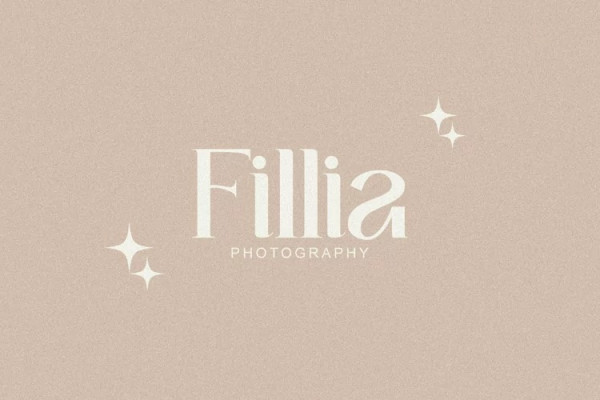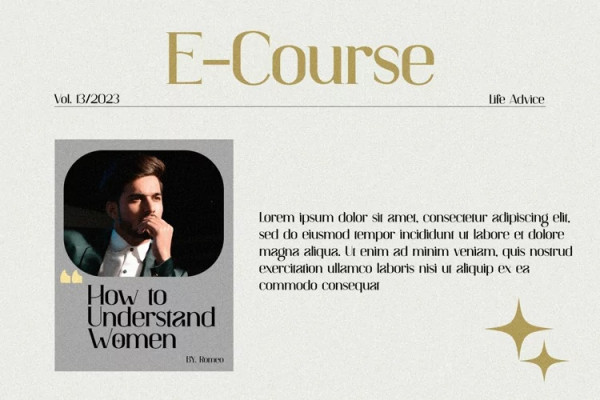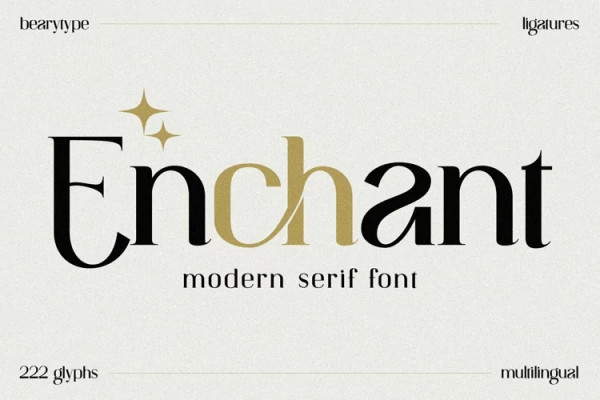
Enchant Typeface
Enchant Typeface, the modern serif font that will elevate your designs to new heights. With its modern and sophisticated style, Enchant is the perfect choice for any project that demands elegance and class.
Whether you’re creating a website, presentation, or marketing materials,
Enchant’s unique blend of classic and contemporary design will leave a lasting impression on your audience.
So why settle for ordinary fonts when you can have Enchant’s timeless beauty? Upgrade your designs today with Enchant.